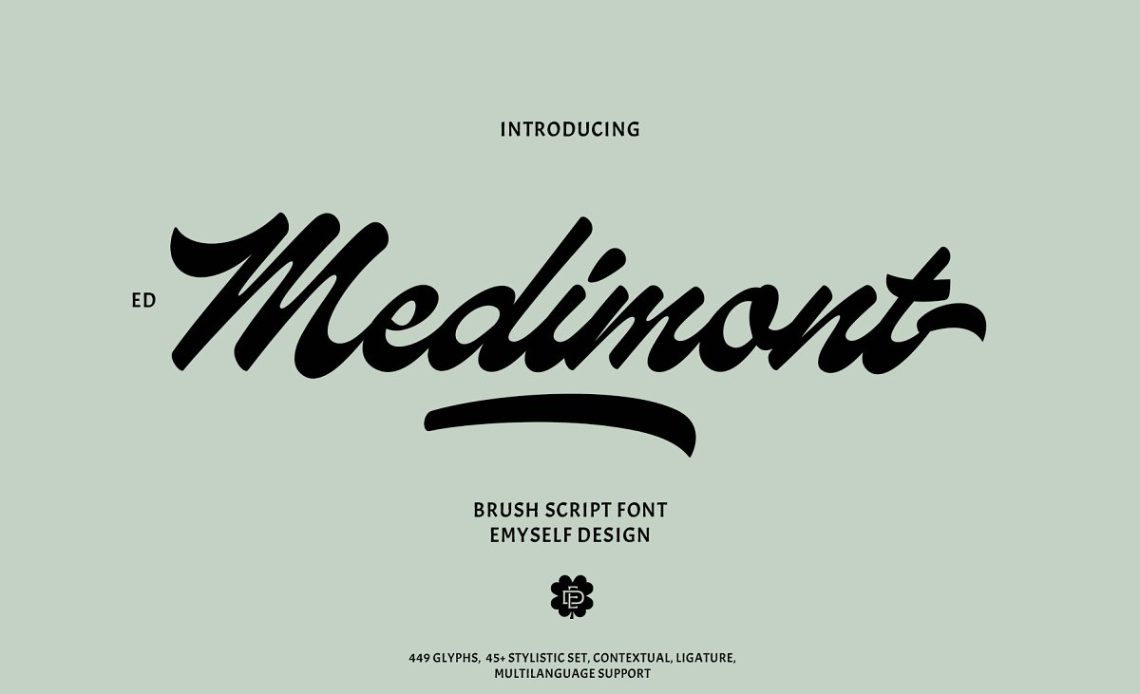
Introducing ED Medimont - the ultimate brush script font for those seeking the best font for signature! Created by Eko Setiawan, this font family boasts a classic vintage style that is sure to elevate your creative projects to the next level.
With a total glyph count of 449, this font is packed with features that allow for unparalleled creativity. From the swash font to the 45+ stylistic sets and contextual alternatives, ED Medimont offers a variety of options to make your designs stand out. The font also includes multi-language support, making it perfect for any project around the globe.
ED Medimont is perfect for a variety of creative projects, including logotypes, printed quotes, invitations, cards, product packaging, headers, letterheads, apparel, web design, magazines, books, and more. The possibilities are endless!
Whether you're a designer, marketer, or simply someone looking for a beautiful signature font, ED Medimont is the perfect choice. Its versatile features and classic style will help your projects shine.